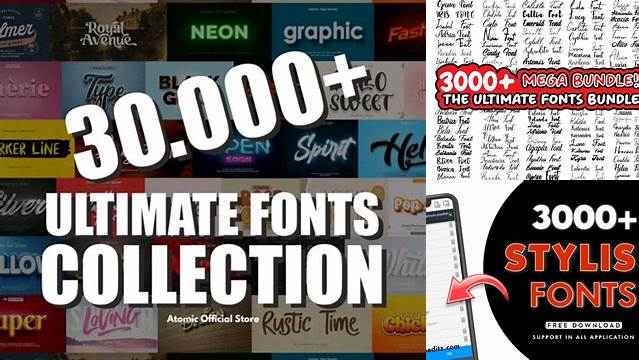
3000 Fonts: Unleash Your Design Potential
Hey guys! Ever feel like your designs are missing that oomph? Like they need a little something extra to truly shine? Well, let me tell you, you're probably just one amazing font away from design nirvana. And guess what? Today, we're diving headfirst into a treasure trove of typography: a collection of 3000 fonts that's sure to ignite your creative spark! Selecting the right font can dramatically impact the look and feel of any project, from websites and logos to marketing materials and even personal projects. A well-chosen typeface can communicate a brand's personality, evoke specific emotions, and improve readability. But with so many fonts available, finding the perfect one can feel like searching for a needle in a haystack. That's where a comprehensive font collection like this comes in handy. It provides a vast selection of options, ensuring that you'll always have the right font at your fingertips, no matter what the project demands. Whether you're a seasoned professional or just starting out, having access to such a wide variety of fonts can significantly enhance your design capabilities. You can experiment with different styles, explore new creative avenues, and ultimately create designs that truly stand out. So, let's get into it and explore the possibilities that await you with this extensive font collection!
Why a Massive Font Collection is a Game-Changer
Okay, so you might be thinking, "3000 fonts? Do I really need that many?" And the answer, my friend, is a resounding YES! Here's why having a massive font collection is a total game-changer for any designer, hobbyist, or anyone who wants to make their work look professional. First off, variety is the spice of life, and that couldn't be truer when it comes to fonts. Imagine you're working on a sleek, modern website. A playful, handwritten font just isn't going to cut it. You need something clean, geometric, and professional. But then, you switch gears and start designing a whimsical children's book. Suddenly, that same sleek font feels cold and sterile. You need something fun, quirky, and full of personality. With a collection of 3000 fonts, you have the freedom to experiment and find the perfect match for every project. No more settling for "good enough" – you can find the perfect font that truly captures the essence of your design. Secondly, having a diverse font library boosts your creativity. When you're constantly exposed to new and interesting typefaces, it sparks new ideas and inspires you to think outside the box. You might stumble upon a font that you never would have considered before, but it ends up being the missing piece that takes your design to the next level. It's like having a muse constantly whispering in your ear, pushing you to explore new possibilities. Moreover, let's talk about professionalism. Using generic, overused fonts can make your work look amateurish. Clients and viewers can often subconsciously perceive the quality and attention to detail based on the typography you choose. Having a wide range of fonts at your disposal allows you to select unique, high-quality typefaces that elevate your work and make it stand out from the crowd. This is especially crucial when working on branding projects, where the right font can make all the difference in conveying the brand's identity and values. Finally, consider the time savings. Instead of spending hours scouring the internet for the perfect font for each project, you have a curated collection right at your fingertips. This frees up valuable time and energy that you can dedicate to other aspects of your design process, such as concept development, layout, and refining your overall vision. A comprehensive font collection is an investment in your creativity, efficiency, and ultimately, the success of your design projects.
Exploring the Types of Fonts You'll Find
Alright, so we've established that having 3000 fonts is pretty awesome. But what kind of fonts are we talking about here? What can you actually expect to find in this massive collection? Well, get ready for a whirlwind tour of the typography universe! You'll find everything from the classic serif fonts that exude elegance and tradition to the modern sans-serif fonts that scream clean and contemporary. Serifs, with their little decorative strokes, are often used in print materials like books and newspapers because they enhance readability and create a sense of formality. Think of fonts like Times New Roman, Garamond, and Georgia – these are the workhorses of the publishing world. On the other hand, sans-serif fonts, which lack those decorative strokes, are typically favored for digital displays like websites and apps. They offer a clean, minimalist aesthetic that's easy on the eyes and conveys a sense of modernity. Popular sans-serif fonts include Arial, Helvetica, and Open Sans. But the collection doesn't stop there! You'll also discover a wide array of display fonts, which are designed to grab attention and make a statement. These fonts come in all shapes and sizes, from bold and chunky to delicate and ornate. They're perfect for headlines, logos, posters, and any other situation where you want to make a visual impact. Think of script fonts that mimic handwriting, blackletter fonts that evoke a sense of gothic drama, and decorative fonts that incorporate unique design elements. Then there are the script fonts, which mimic the fluidity of handwriting. These fonts can add a touch of elegance, personality, and warmth to your designs. They're perfect for invitations, greeting cards, logos, and anything else that needs a personal touch. However, it's important to use script fonts sparingly, as they can be difficult to read in large blocks of text. In addition to these core categories, you'll also find a variety of specialty fonts, such as monospaced fonts (where each character takes up the same amount of horizontal space), dingbat fonts (which contain symbols and icons), and even color fonts (which incorporate multiple colors within a single character). This diverse range of font styles ensures that you'll always have the perfect typeface for any project, no matter how niche or unconventional. The key is to explore, experiment, and discover the hidden gems that resonate with your creative vision. With 3000 fonts at your fingertips, the possibilities are truly endless!
How to Effectively Manage and Use Your Font Collection
Elevate Your Design with the Perfect Font
So, there you have it, folks! A deep dive into the wonderful world of fonts and why having a collection of 3000 of them can seriously level up your design game. Remember, the right font can be the missing piece that transforms your projects from blah to brilliant. It's not just about making things look pretty (although that's definitely a bonus!). It's about communicating effectively, conveying your message with clarity and style, and creating a visual experience that resonates with your audience. Whether you're designing a website, creating a logo, crafting a marketing campaign, or simply adding a personal touch to your own projects, having a diverse range of fonts at your fingertips empowers you to express your creativity and achieve your design goals. Think of fonts as the voice of your design. Just like different voices can convey different emotions and personalities, different fonts can evoke different feelings and associations. A bold, blocky font might convey strength and confidence, while a delicate, handwritten font might evoke warmth and intimacy. By carefully selecting the right font, you can shape the way your audience perceives your message and create a lasting impression. But remember, with great power comes great responsibility! A vast font collection is a valuable tool, but it's important to use it wisely. Don't get carried away with too many different fonts in a single project. Stick to a limited palette of complementary fonts that work well together. Pay attention to readability, and choose fonts that are easy on the eyes. And always respect the licensing terms of the fonts you use. Ultimately, the key to mastering typography is to experiment, explore, and have fun. Don't be afraid to try out new combinations, break the rules, and discover your own unique style. With 3000 fonts at your disposal, the possibilities are truly endless. So, go forth, unleash your inner font fanatic, and create designs that are as beautiful as they are effective!